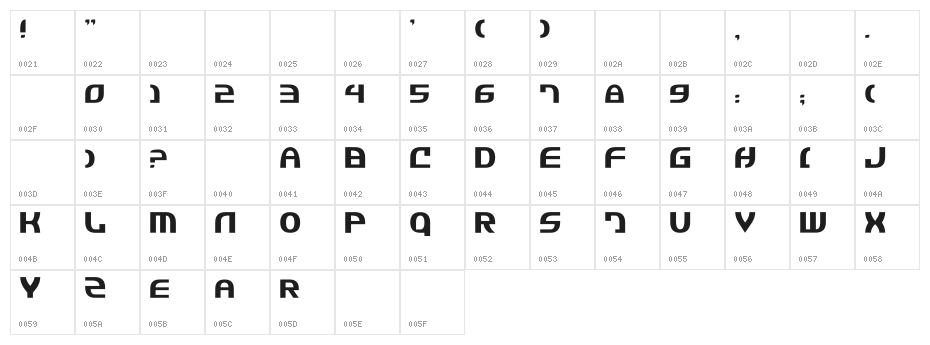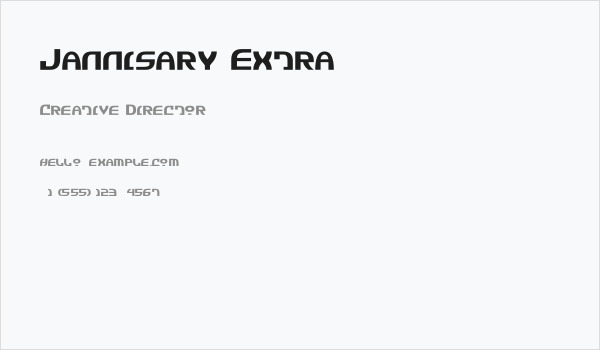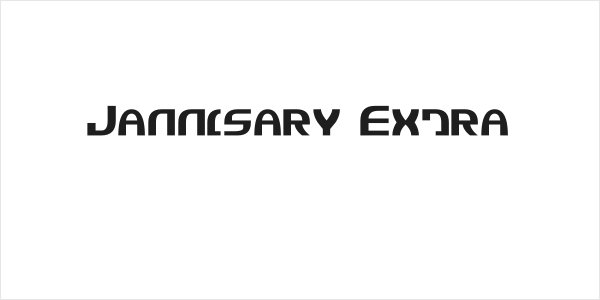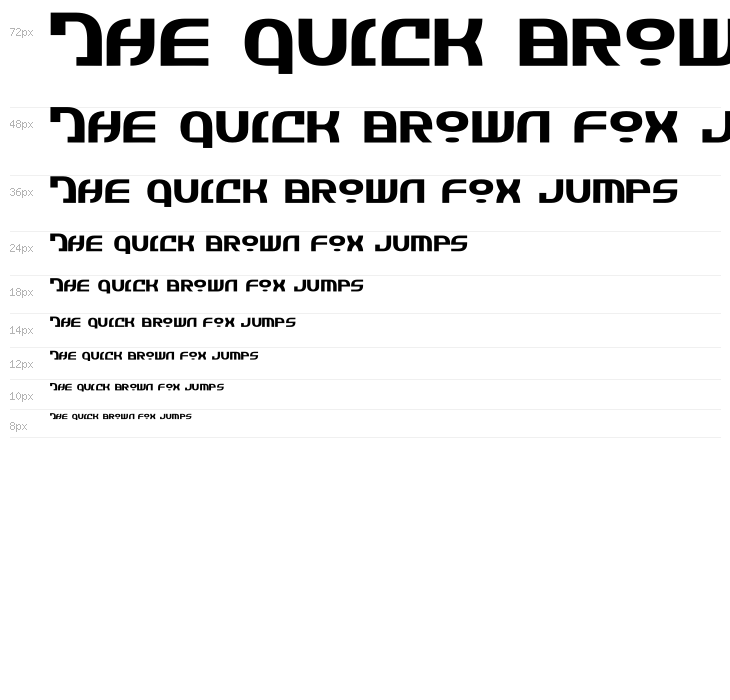
Jannisary Extra Font
Jannisary Extra Description
This font features a bold and futuristic design, characterized by its geometric shapes and strong presence. The uppercase letters are distinct with a unique blend of curves and straight lines, creating a modern and edgy look. The lowercase letters maintain the same geometric style, ensuring consistency throughout the typeface. Numbers are bold and easily readable, while special characters are designed to match the overall aesthetic. The font's style is ideal for making a strong visual impact, suitable for various creative projects.
| Proposed Projects | Ideal for branding, headlines, posters, and digital media projects that require a modern and striking appearance. |